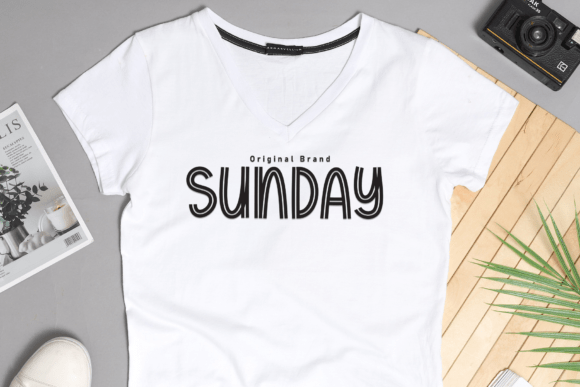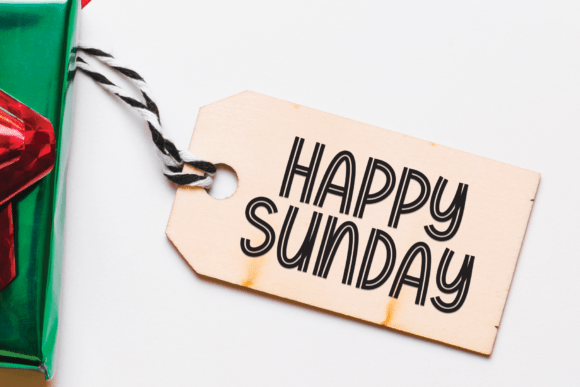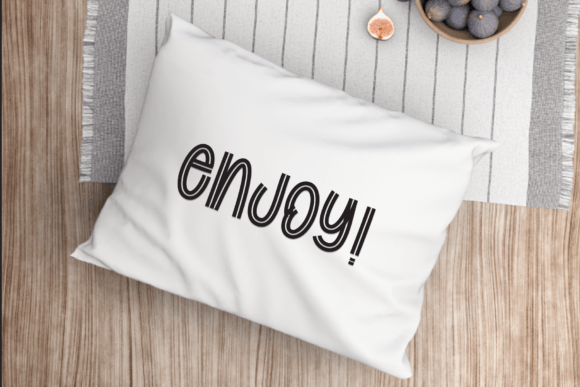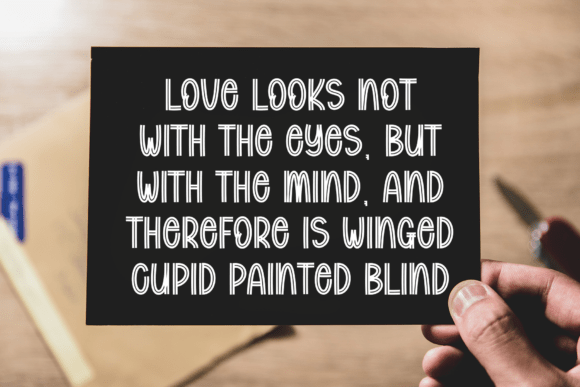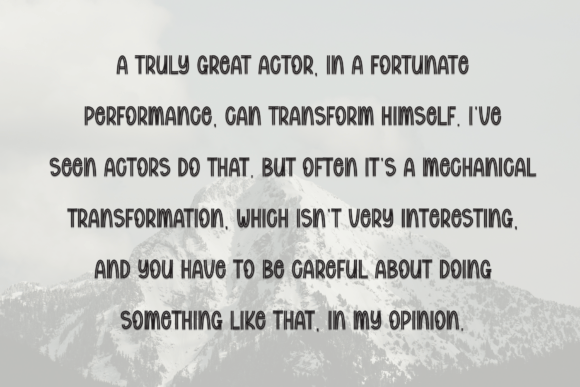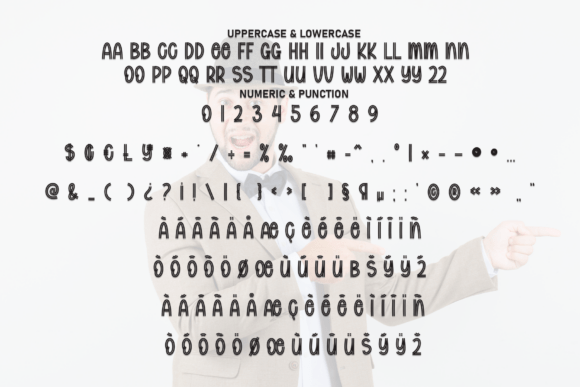
Introducing Charlie Font: The Warm and Whimsical Handwritten Display Font
Are you looking for a font that exudes warmth, friendliness, and a touch of whimsy? Look no further than Charlie Font, a captivatingly charming handwritten display font that is sure to bring your designs to life. With its vibrant flair and appealing crafting, Charlie Font is the perfect option for a variety of creative projects, from wedding invites to affectionate greeting cards.
The Characteristics of Charlie Font
Charlie Font is a handwritten display font that is infused with a vibrant flair, making it perfect for designs that require a dash of personality and charm. Its warm and friendly tone is sure to evoke feelings of joy and happiness, making it an ideal choice for projects that require a personal touch. The font’s appealing crafting is evident in its smooth, flowing lines and carefully considered letterforms, which work together to create a sense of whimsy and playfulness.
Perfect for Wedding Invites and Greeting Cards
Charlie Font is particularly well-suited for wedding invites and greeting cards, where its warm and friendly tone can help to create a sense of intimacy and connection. Whether you’re designing a formal wedding invitation or a more casual greeting card, Charlie Font is sure to add a touch of personality and charm to your design. Its elegant, yet approachable, letterforms make it perfect for conveying heartfelt messages and special occasions.
Adding a Dash of Whimsy to Your Designs
One of the key benefits of Charlie Font is its ability to add a dash of whimsy to your designs. Its playful, handwritten letterforms are sure to bring a sense of fun and personality to your projects, making it perfect for designers and crafters who want to create unique and eye-catching designs. Whether you’re designing a children’s book, a party invitation, or a social media graphic, Charlie Font is sure to add a touch of magic to your project.
Uplifting Spirit and Endless Possibilities
Charlie Font is more than just a font – it’s a design solution that can help to bring your ideas to life. Its uplifting spirit and vibrant flair make it perfect for a wide range of creative projects, from branding and advertising to packaging and web design. With Charlie Font, the possibilities are endless, and you’re sure to find a use for it in your next design project.
Key Features of Charlie Font
- Handwritten display font with a vibrant flair
- Warm and friendly tone
- Appealing crafting with smooth, flowing lines
- Perfect for wedding invites, greeting cards, and other special occasions
- Adds a dash of whimsy and personality to your designs
- Uplifting spirit and endless possibilities
Tips for Using Charlie Font
To get the most out of Charlie Font, here are a few tips to keep in mind:
- Use it for headlines and titles, where its vibrant flair can really shine
- Pair it with other fonts to create a unique and eye-catching design
- Don’t be afraid to get creative and try new things – Charlie Font is all about experimentation and self-expression!
In conclusion, Charlie Font is a captivatingly charming handwritten display font that is sure to bring warmth, friendliness, and whimsy to your designs. With its vibrant flair, appealing crafting, and uplifting spirit, it’s the perfect option for a wide range of creative projects, from wedding invites to greeting cards and beyond. So why wait? Download Charlie Font today and start bringing your ideas to life!